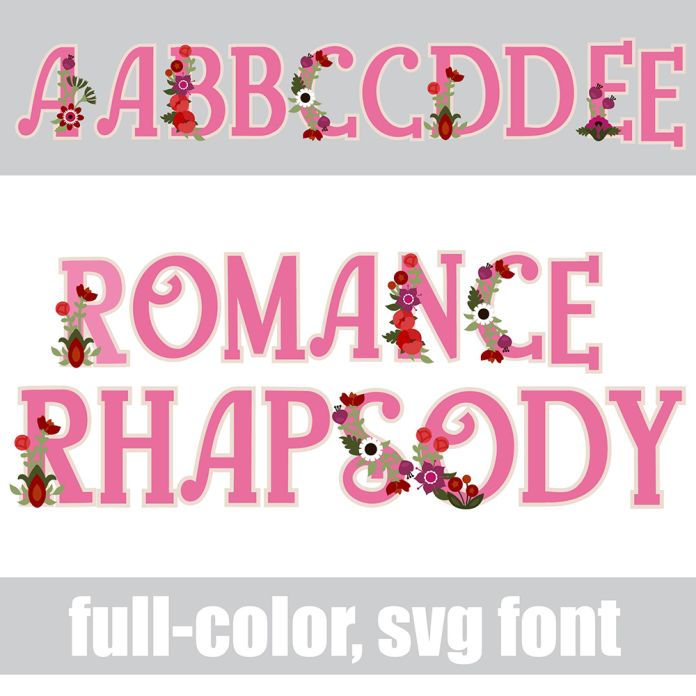
This hand-crafted, full-color font features a pretty serif with romantic florals. There is an alt case with an additional color of each letter. This font works best for titles, displays, posters and more. Please note color fonts will show as black in non compatible programs. This font type is compatible with Silhouette Studio.